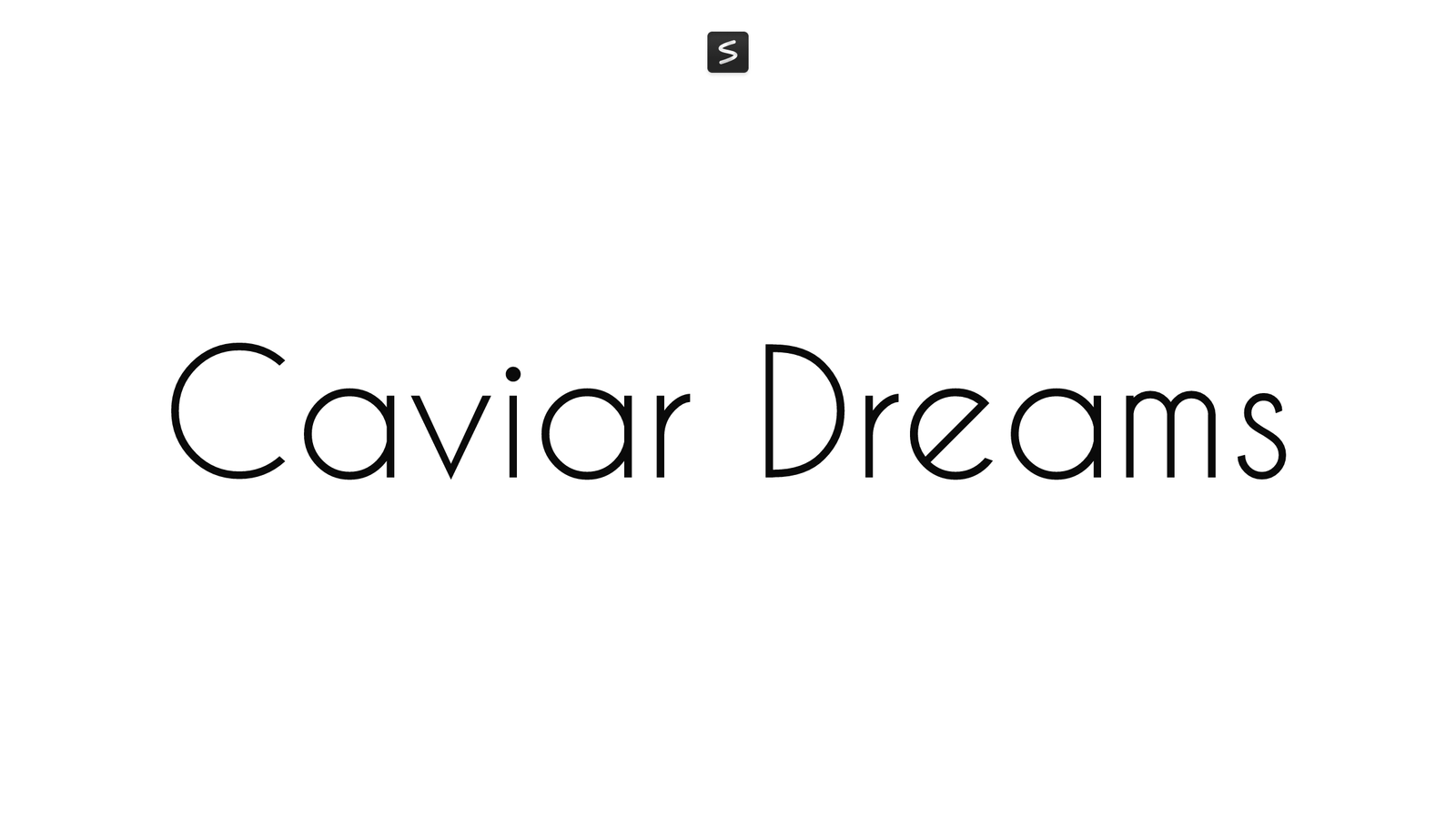
Caviar Dreams is a lightweight geometric sans-serif designed by Lauren Thompson. Its thin, evenly-spaced letterforms have a clean, minimal quality that feels current without leaning heavily on trend. The font works across both screen and print, maintaining clarity even at smaller sizes.
The geometric construction gives each letter a precise, measured feel. The open counters and consistent stroke weight create an elegant appearance that pairs well with understated layouts. It’s the kind of font that doesn’t announce itself but makes the page feel more composed.
Caviar Dreams suits editorial design, web layouts, brand identity work, and any project where restraint and legibility matter. It’s also useful for pairing with bolder display fonts as a calm counterpoint. For designers who want a sans-serif that’s straightforward and refined, this one does the job.